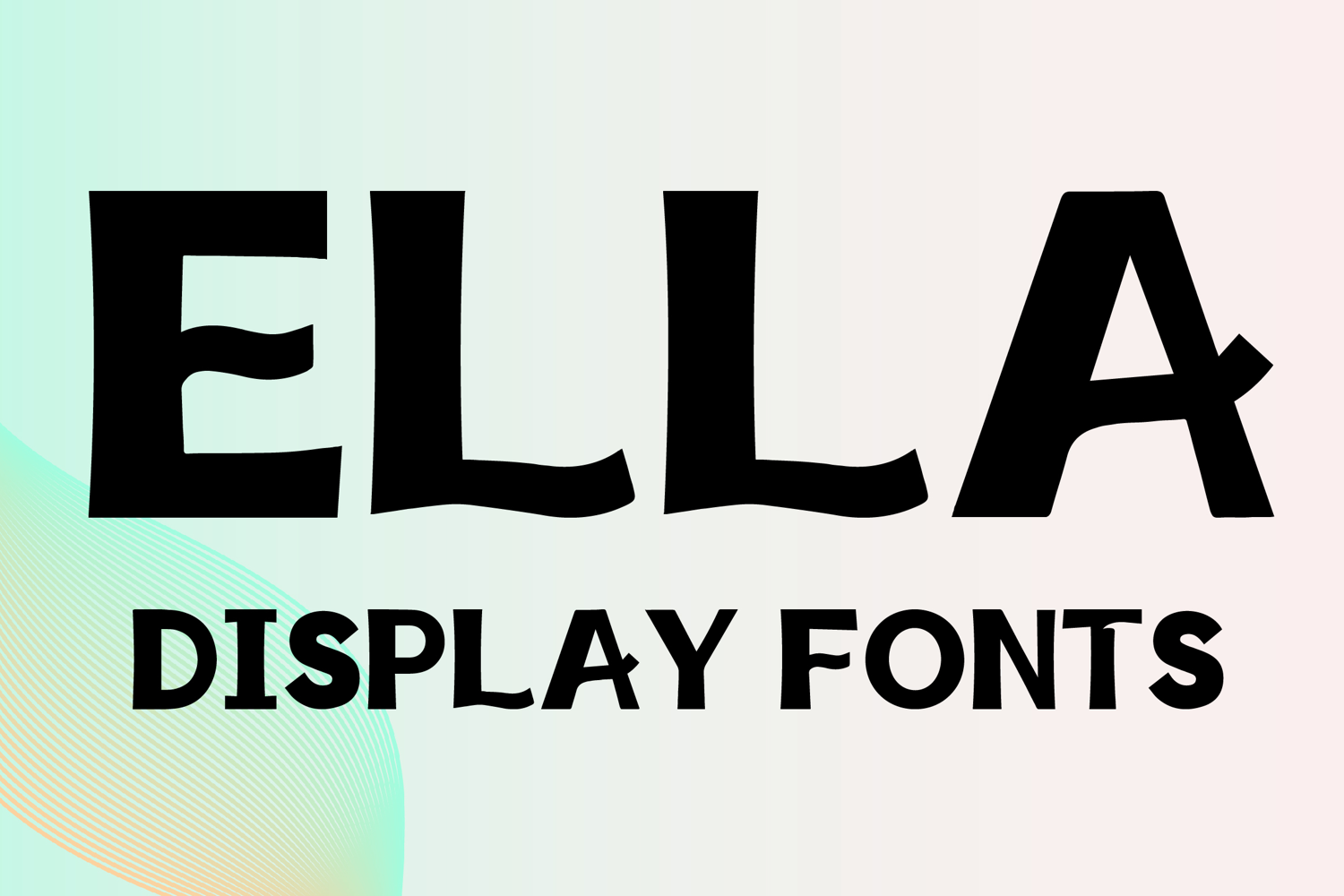
ELLA
ELLA is a bold display font with a modern handcrafted style and playful artistic character. Its uppercase letterforms feature thick strokes, slightly curved baselines, and subtle irregular details that create a stylish, confident, and eye-catching look. Designed with uppercase letters A–Z and numbers 0–9, ELLA is perfect for branding, posters, packaging, logos, headlines, social media graphics, and creative projects that need a bold and memorable statement.